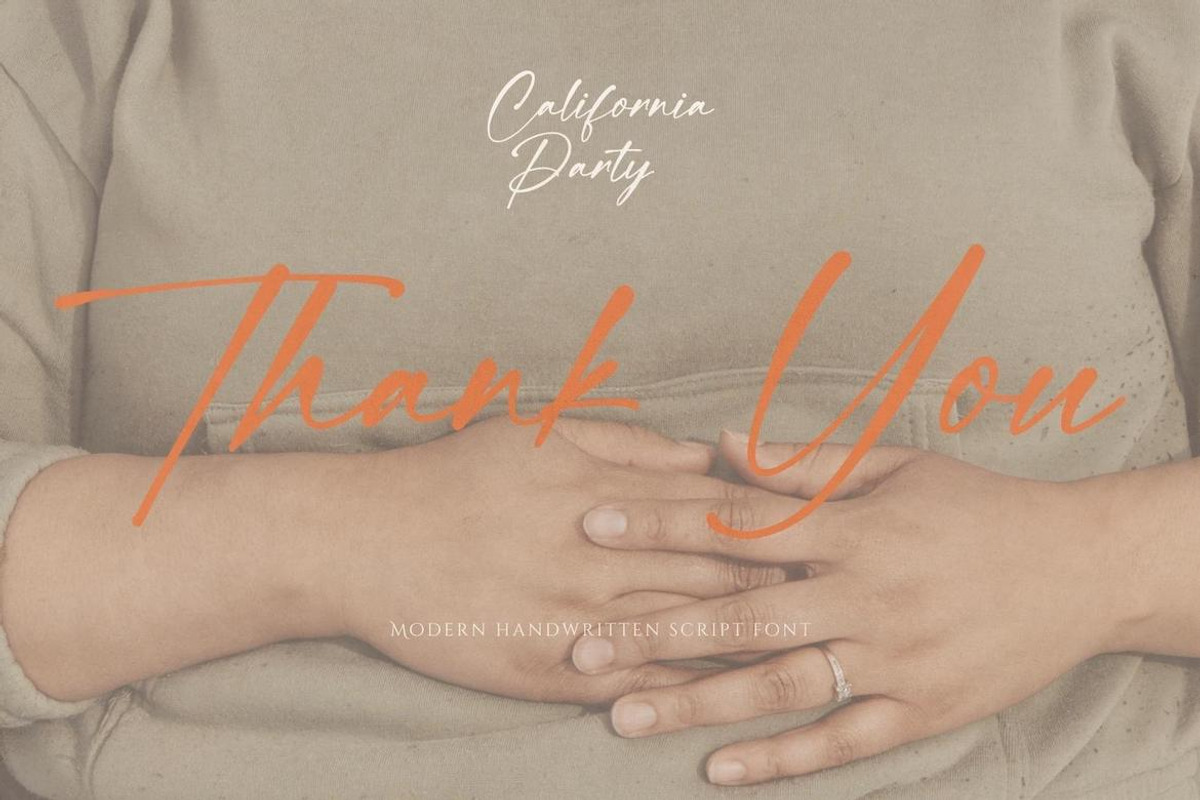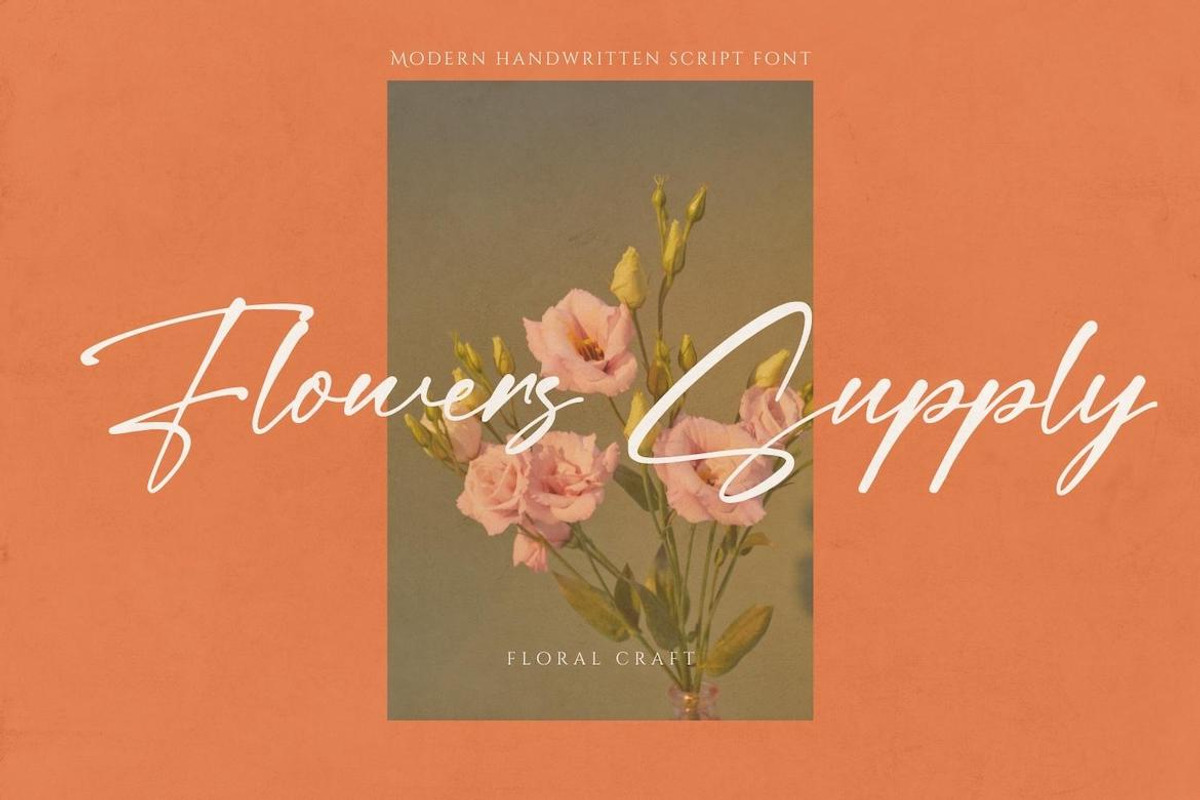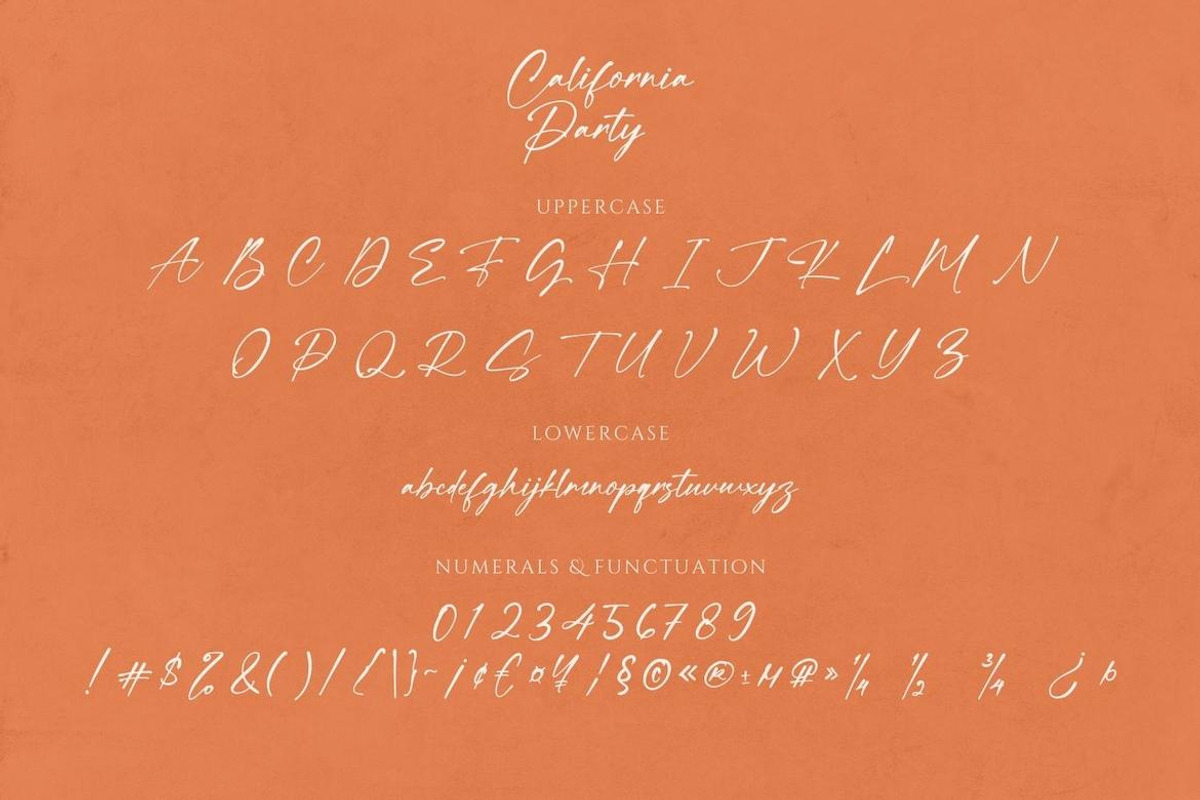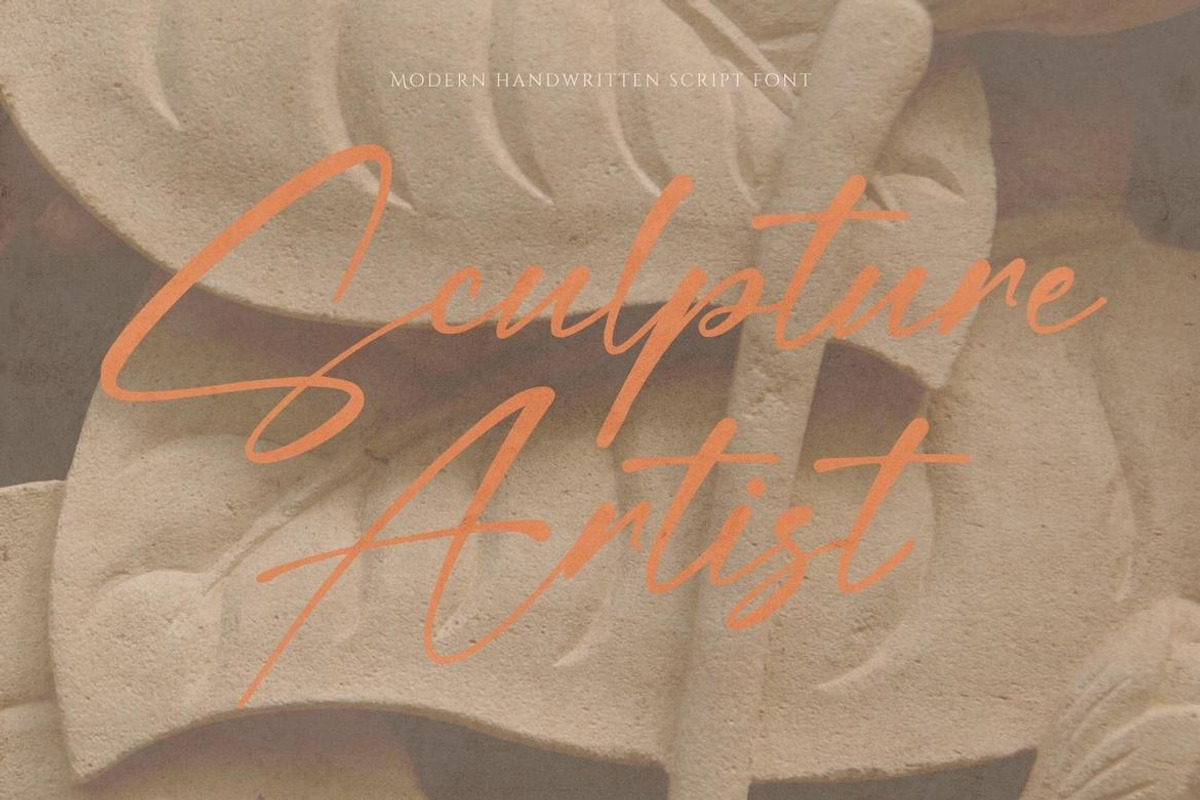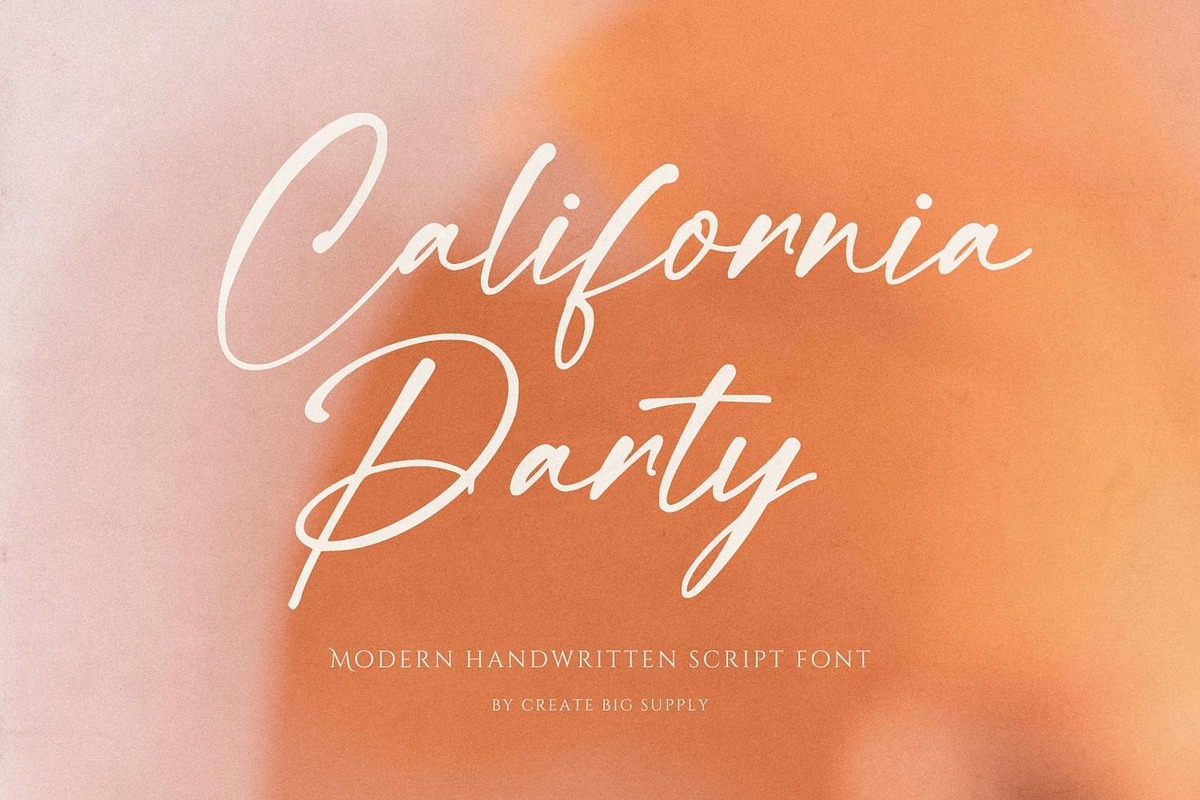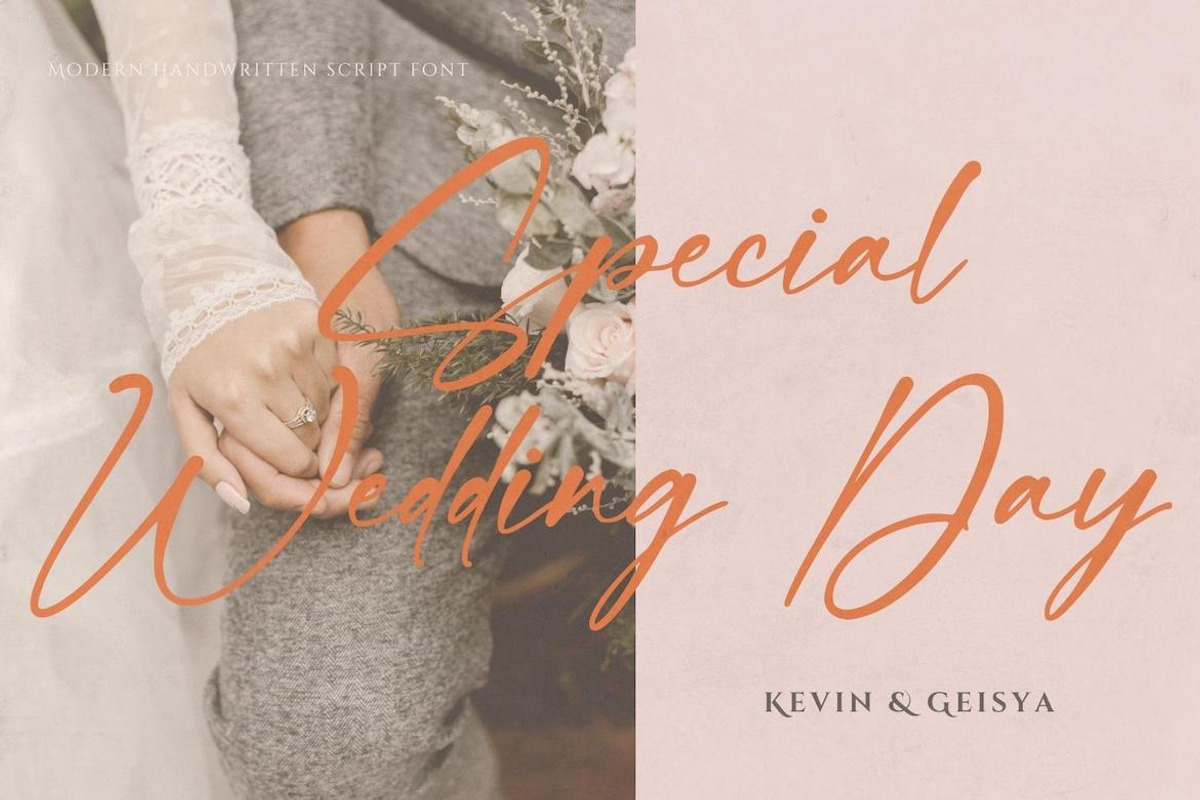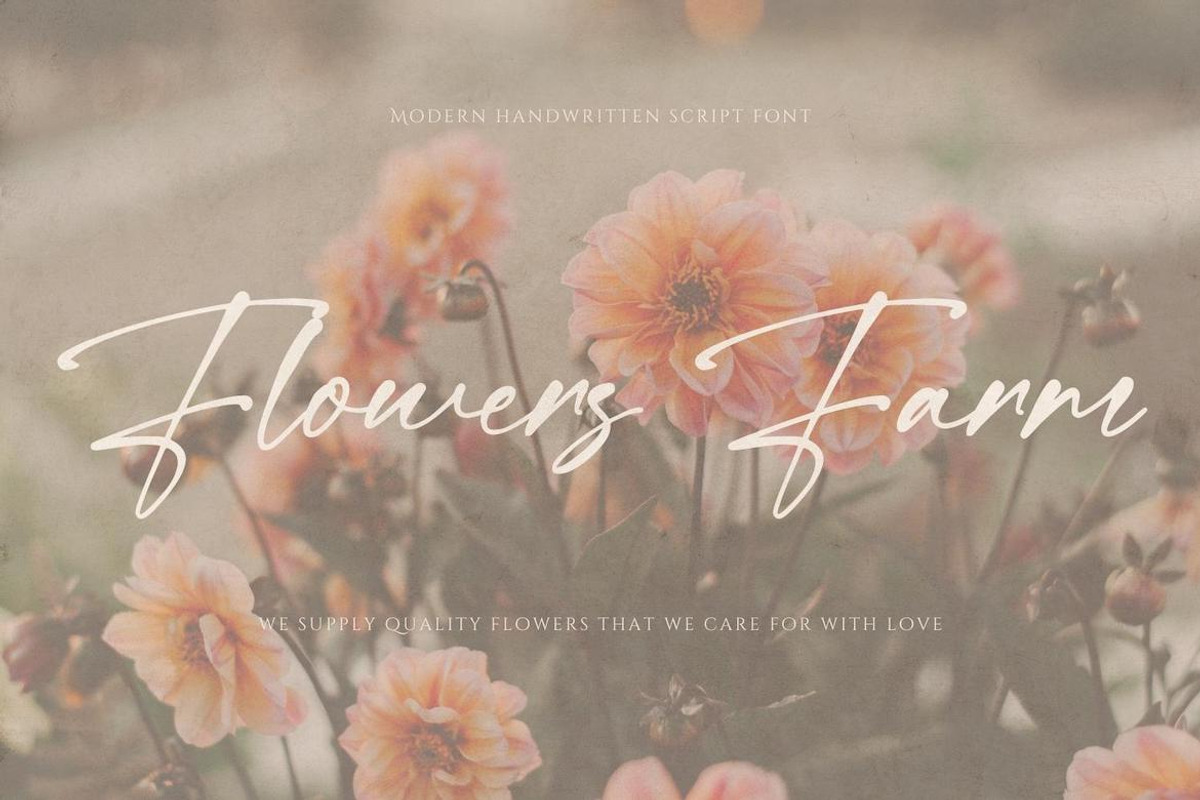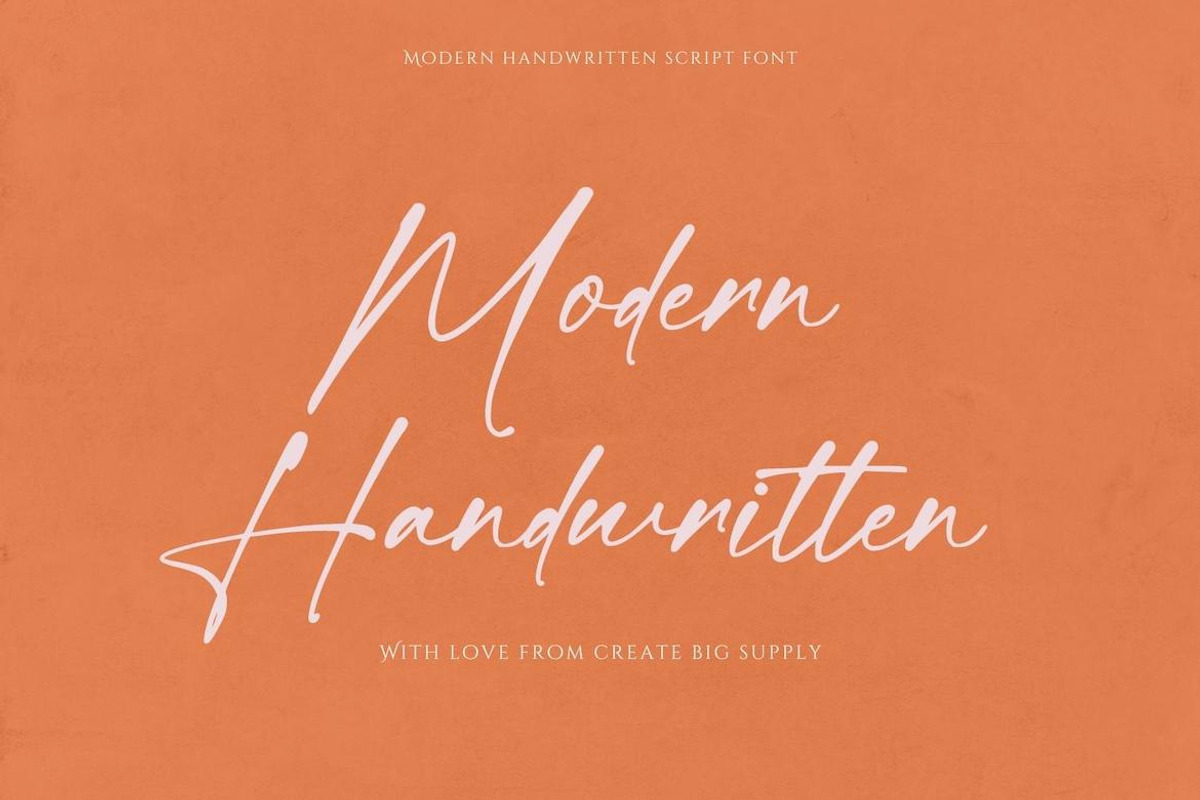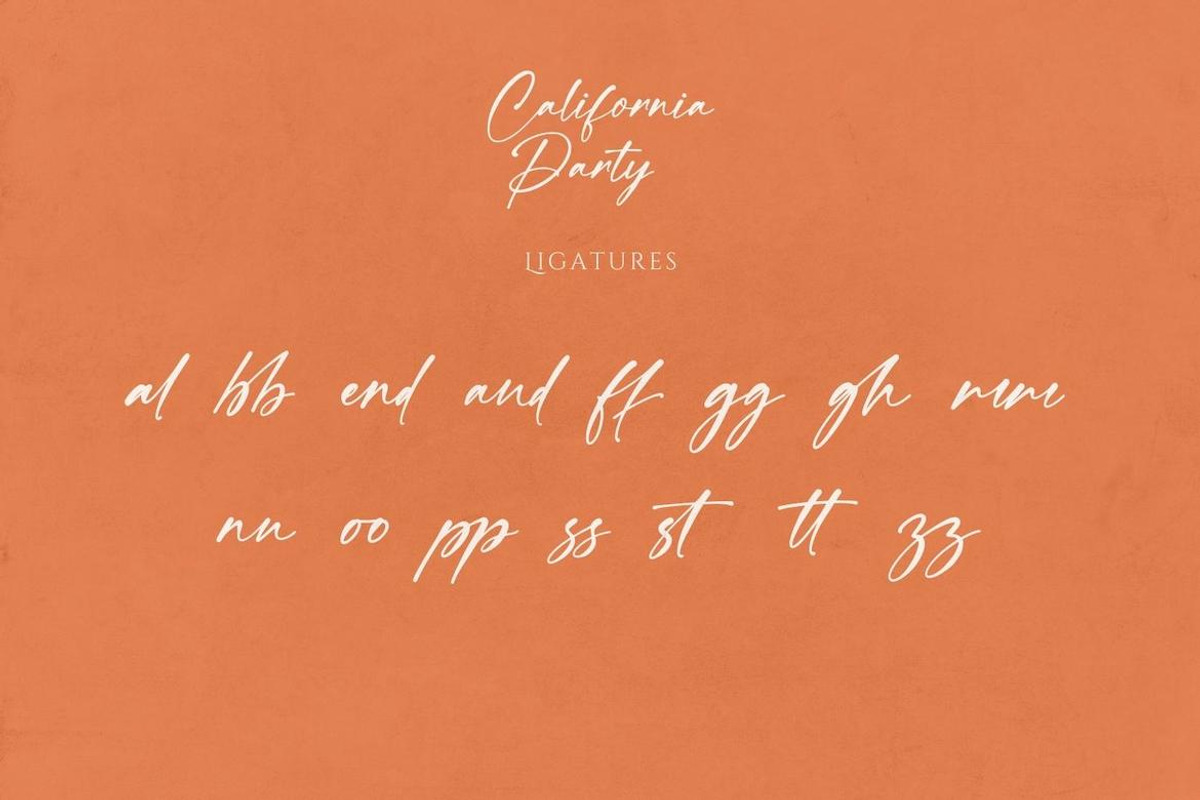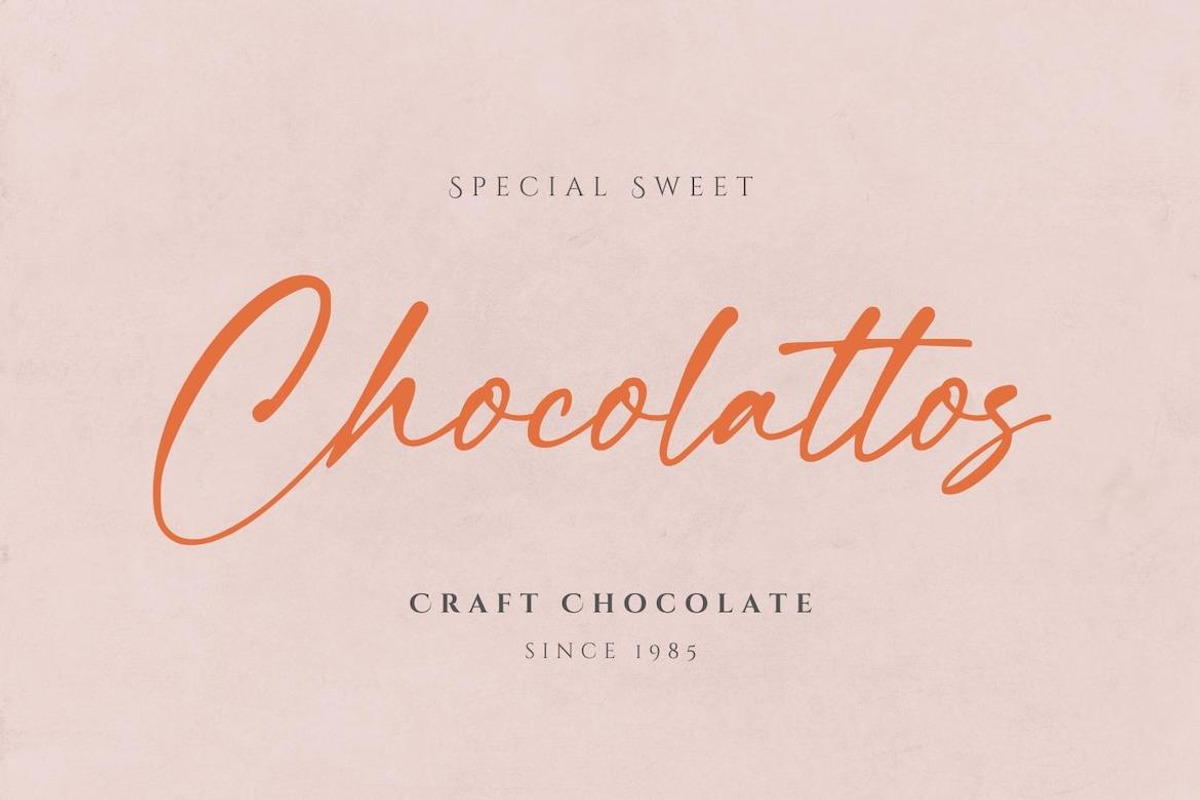
California Party
Introducing California Party, a newly released handwritten signature script font that adds a natural and personalized touch to your projects. With its authentic handwritten style, this font is ideal for creating a signature-like effect and infusing your designs with a sense of individuality. California Party is categorized as a versatile script font that captures the essence of natural handwriting. It features both uppercase and lowercase letters, numbers, and punctuations, allowing you to create diverse and expressive compositions. The font also supports multiple languages, ensuring accessibility for a global audience. Enhance the flow of your typography with ligatures and enjoy the convenience of PUA encoding, enabling easy access to special characters. Download the California Party Handwritten Signature Script Font now and elevate your various projects with its unique signature and handwritten styles.